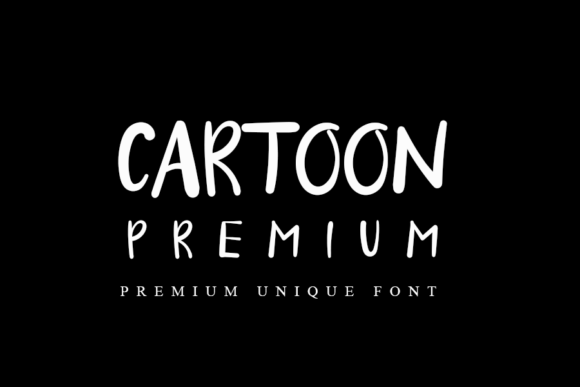
Journey into the world of Cartoon Premium, a display font that exudes charm and playfulness. Its captivating curves and whimsical characters create a unique visual experience that will transform your designs into extraordinary works of art.
Dive into a world of imagination and creativity with Cartoon Premium, a display font that will ignite your artistic spirit. This charismatic font, crafted by the talented K_IN Studio, boasts an array of captivating features that will elevate your designs to new heights. Whether you're a seasoned designer or just starting your creative journey, Cartoon Premium is the perfect font to bring your vision to life.
Discover the endless possibilities of Cartoon Premium, a font that seamlessly blends elegance and fun. Express your unique style through a myriad of captivating designs, from eye-catching logos and social media posts to enchanting invitations and greeting cards. The versatility of Cartoon Premium knows no bounds, making it the ideal choice for a wide range of creative endeavors.
Embark on a creative adventure with Cartoon Premium, a font that will captivate your audience and leave a lasting impression. Its charming personality and playful spirit will add a touch of magic to your designs, making them stand out from the crowd. Unleash your creativity and let Cartoon Premium guide you toward extraordinary outcomes.